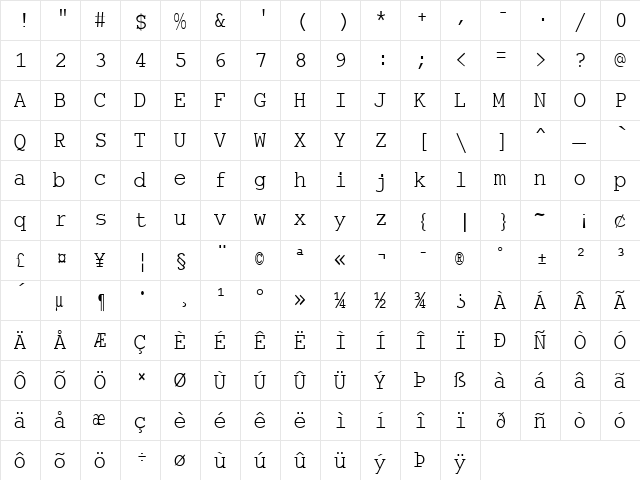
CurierCnd Becker Normal
Design Context for CurierCnd Becker Typeface
CurierCnd Becker takes a measured approach to typography — its balanced proportions and neutral character make it a reliable workhorse for both digital and print work.